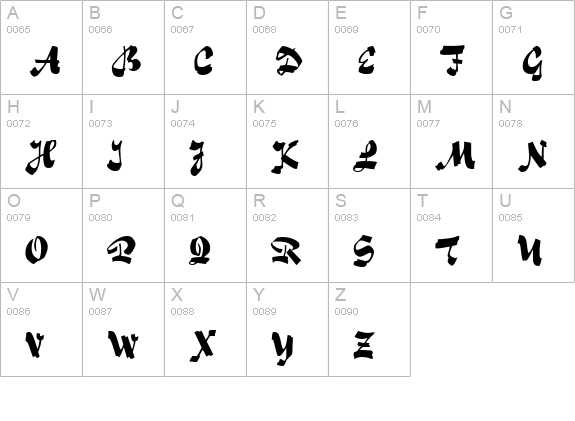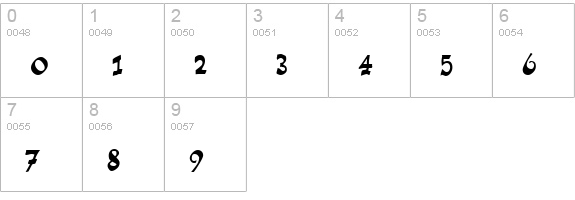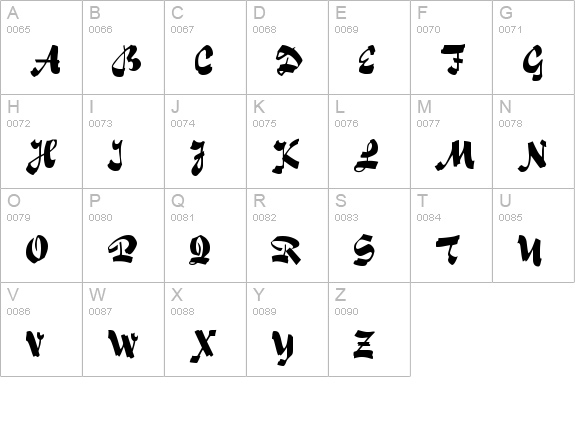
Rhapsodie Font Details
Rhapsodie font is a stunning and elegant typeface that exudes a sense of sophistication and creativity. With its harmonious blend of sleek lines and delicate curves, Rhapsodie is the perfect choice for projects that require a touch of class and style. This versatile font is suitable for a wide range of design applications, from branding and advertising to invitations and packaging. The best part about Rhapsodie font is that it is completely free to download! Yes, you heard that right - this beautiful typeface can be yours at no cost. Simply head over to FontsMarket.com and get your hands on this exquisite font to elevate your designs to the next level. Don't miss out on the opportunity to add Rhapsodie font to your collection today!